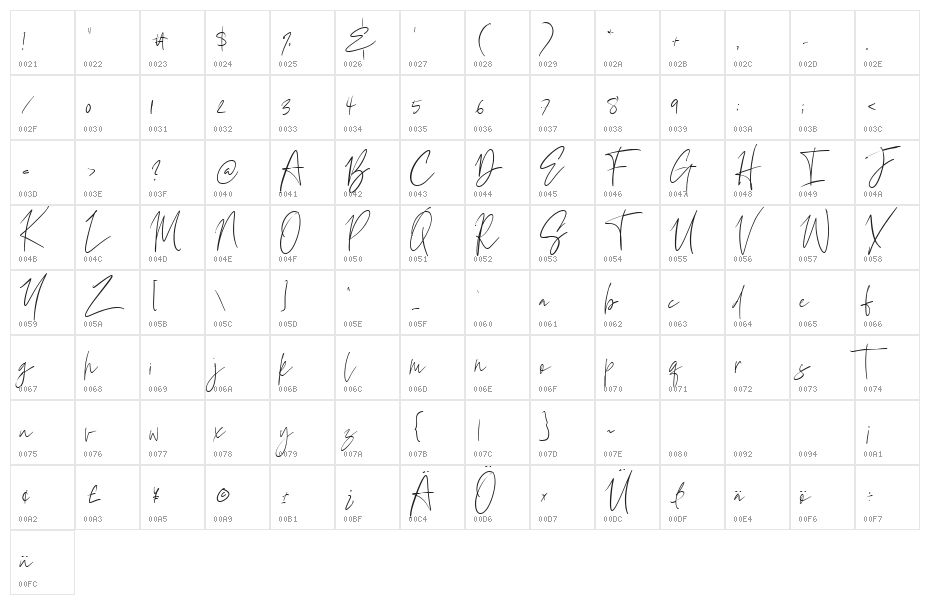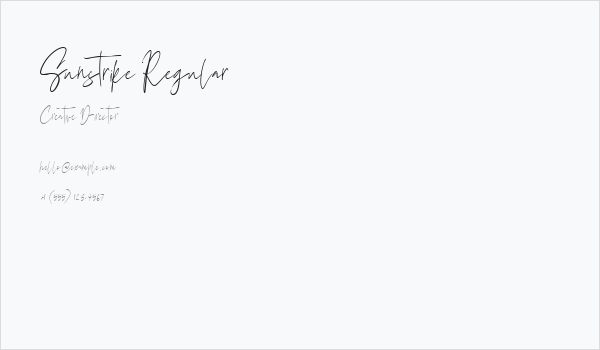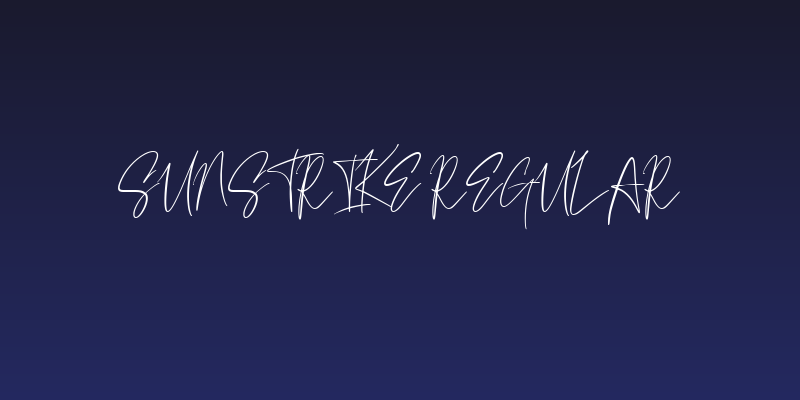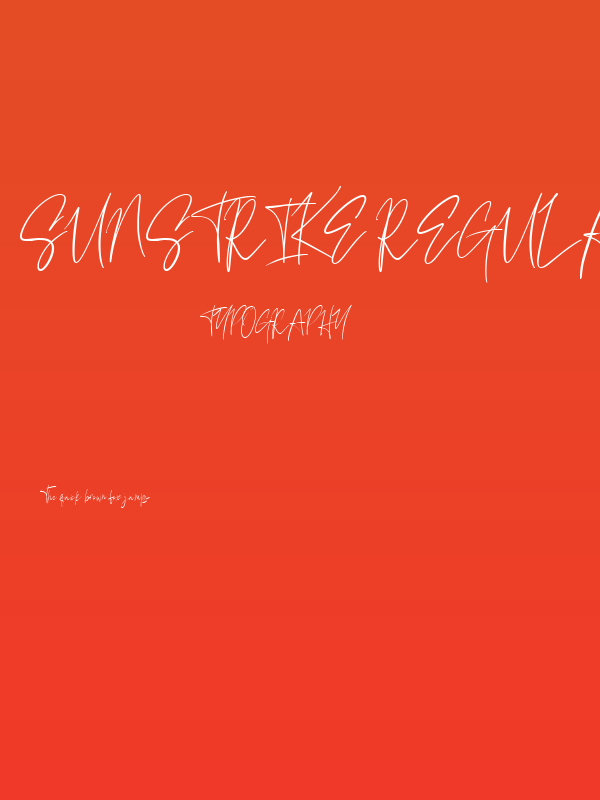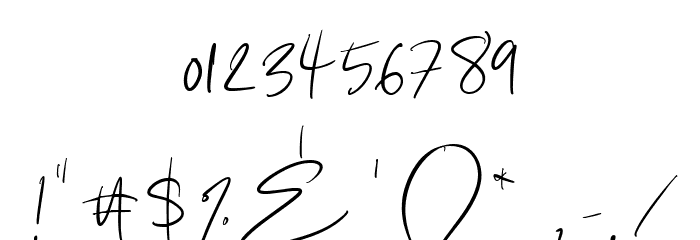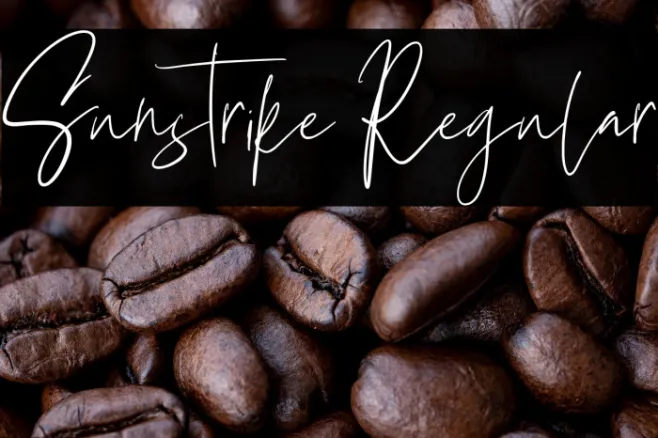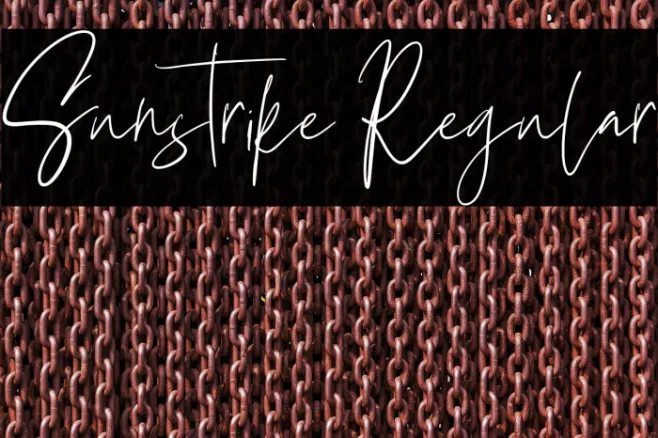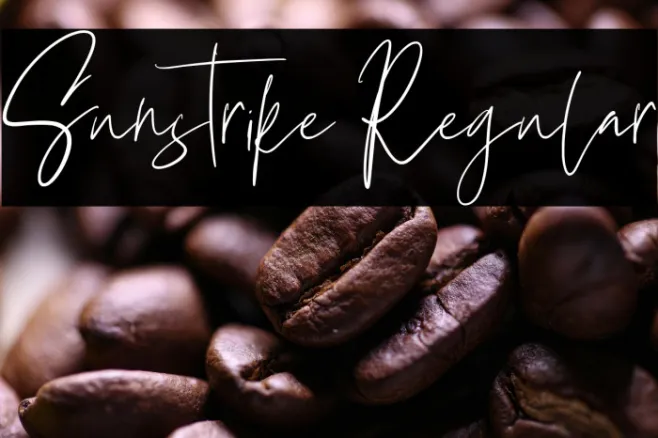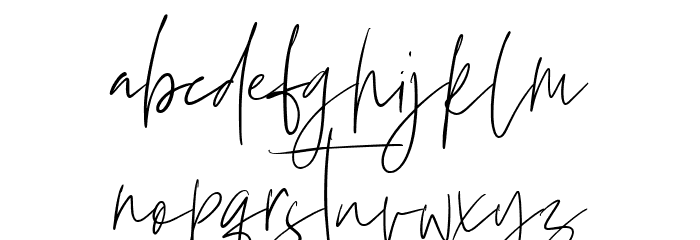
Sunstrike Regular Font
Sunstrike Regular Description
This font exhibits a dynamic and energetic handwritten style, characterized by its fluid and expressive strokes. The letters are crafted with a sense of movement, giving it a lively and spontaneous appearance. The uppercase and lowercase letters maintain a consistent flow, while the numerals and special characters complement the overall aesthetic. The font's irregularities and variations in line thickness add to its charm, making it suitable for creative and artistic projects.
| Use Case | Logos, Headlines, Artistic designs |
| Proposed Projects | Ideal for creative projects such as invitations, greeting cards, artistic posters, and personal branding. |